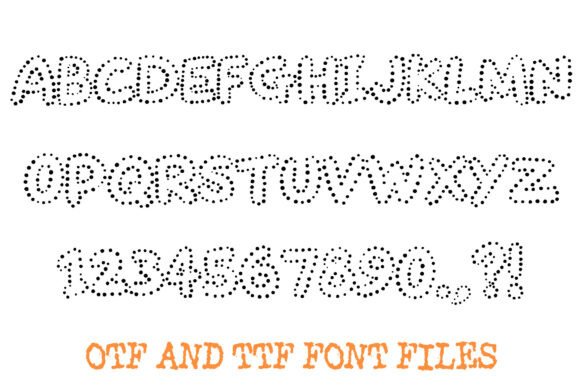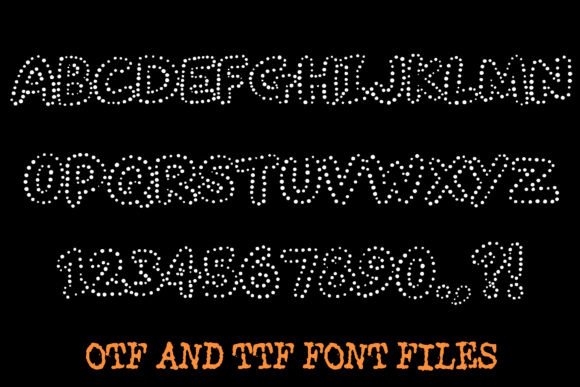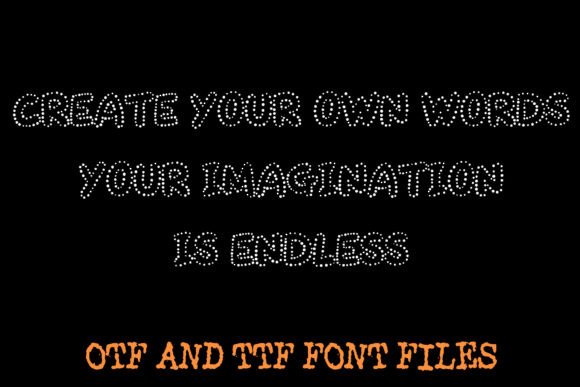
The Dotty Outline Font: A Whimsical and Eye-Catching Typeface
The Dotty Outline font is a unique and captivating decorative typeface that is composed entirely of outlined dot patterns that trace the contours of each glyph. This font merges playful form with structural clarity, giving a sense of handcrafted design with a pop-art flair. The consistent spacing of the dots ensures legibility while preserving the illusion of visual rhythm and movement, making it perfect for a variety of design applications.
A Font that Combines Playfulness with Clarity
Each character in the Dotty Outline font, including uppercase letters, numbers, and punctuation, is defined by dotted strokes that echo lightness and creativity. This font is especially suitable for educational materials, children’s books, event posters, playful branding, and quirky digital designs. The charm of the Dotty Outline font lies in its unusual construction, giving typographic texture without using color or shading.
Purpose-Built for Style over Body Text
It’s essential to note that the Dotty Outline font is designed primarily for visual impact, not for reading in paragraphs. This is a core trait of decorative fonts, and the Dotty Outline font is no exception. Its unique design makes it perfect for headlines, titles, and short phrases, but it may not be the best choice for body text.
Unconventional Form: Characters Constructed Entirely from Dots
The characters in the Dotty Outline font are constructed entirely from dots, forming outlines rather than filled shapes. This unconventional approach gives the font a distinctive look that is both visually striking and engaging. The dot patterns used to create each glyph are carefully crafted to ensure that the font remains legible, even at smaller sizes.
Design Applications for the Dotty Outline Font
The Dotty Outline font is a versatile typeface that can be used in a wide range of design applications, including:
- Educational materials: The font’s playful and engaging design makes it perfect for textbooks, workbooks, and other educational resources.
- Children’s books: The Dotty Outline font is a great choice for children’s books, as it adds a touch of whimsy and fun to the text.
- Event posters: The font’s bold and eye-catching design makes it perfect for event posters, flyers, and other promotional materials.
- Playful branding: The Dotty Outline font can be used to create playful and memorable brand identities that stand out from the crowd.
- Quirky digital designs: The font’s unique design makes it perfect for digital designs that require a touch of personality and whimsy.
Tips for Using the Dotty Outline Font
Here are a few tips for using the Dotty Outline font effectively:
- Use it sparingly: The Dotty Outline font is a decorative font, and it’s best used sparingly to add visual interest to your design.
- Choose the right size: The font looks best when used at larger sizes, so it’s perfect for headlines and titles.
- Experiment with color: While the font is designed to work well in black and white, you can also experiment with different colors to add an extra layer of visual interest.
The Dotty Outline font is a unique and captivating decorative typeface that is perfect for designers and crafters looking to add a touch of whimsy and personality to their designs. Its playful and eye-catching design makes it perfect for a wide range of applications, from educational materials to event posters and playful branding. With its unconventional construction and bold visual impact, the Dotty Outline font is sure to add a touch of style and creativity to any design project.